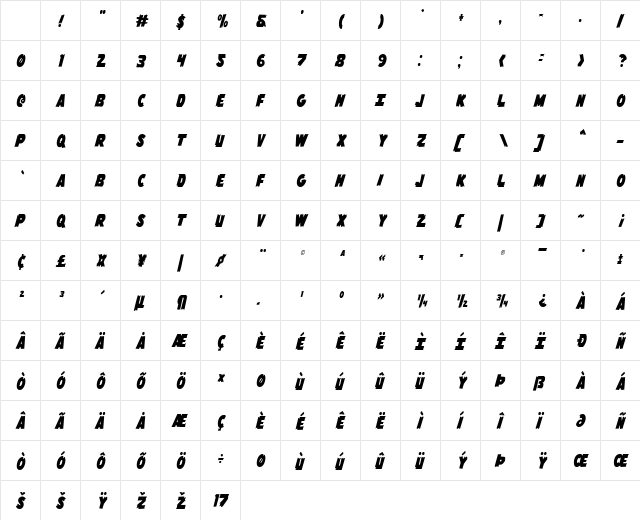
Complete Flying Leatherneck Condensed glyph index. Displaying only characters natively supported by Flying Leatherneck Condensed font.
Flying Leatherneck is a composed and adaptable typeface that performs quietly and consistently across a wide range of design contexts. Its narrow stance lets it pack a punch even in space-constrained designs.